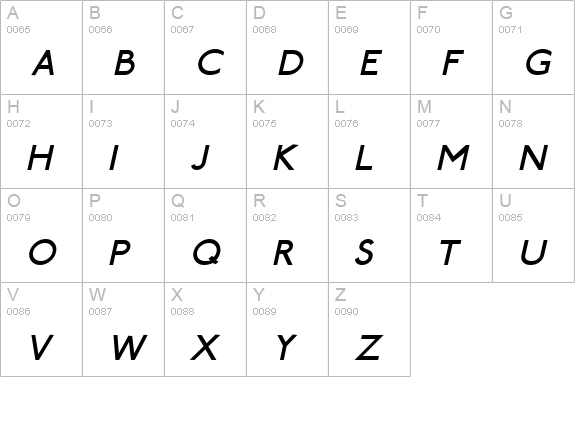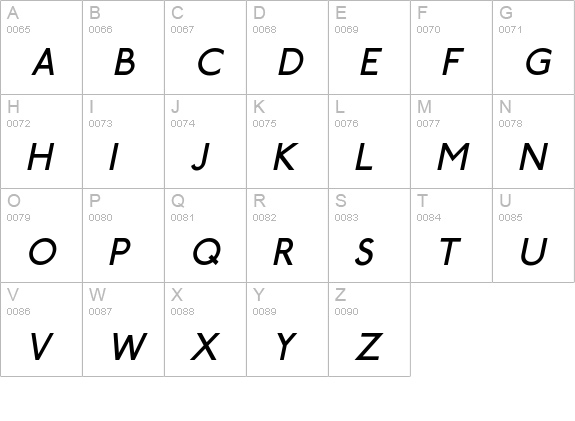
SubwayLondon Italic is a distinctive, italic variant in the SubwayLondon typeface family \xE2\x80\x94 well suited to design and typography projects.
SubwayLondon Italic font is a sleek and modern typeface that exudes sophistication and elegance. With its clean lines and stylish curves, this font is perfect for adding a touch of refinement to any design project. Whether you're creating a logo, branding materials, or a website, SubwayLondon Italic will make your text stand out with its contemporary flair. The best part? SubwayLondon Italic font is available for free download at FontsMarket.com. You can easily add this versatile font to your collection without any cost, making it a valuable resource for designers and creatives alike. Elevate your projects with the timeless charm of SubwayLondon Italic font today!